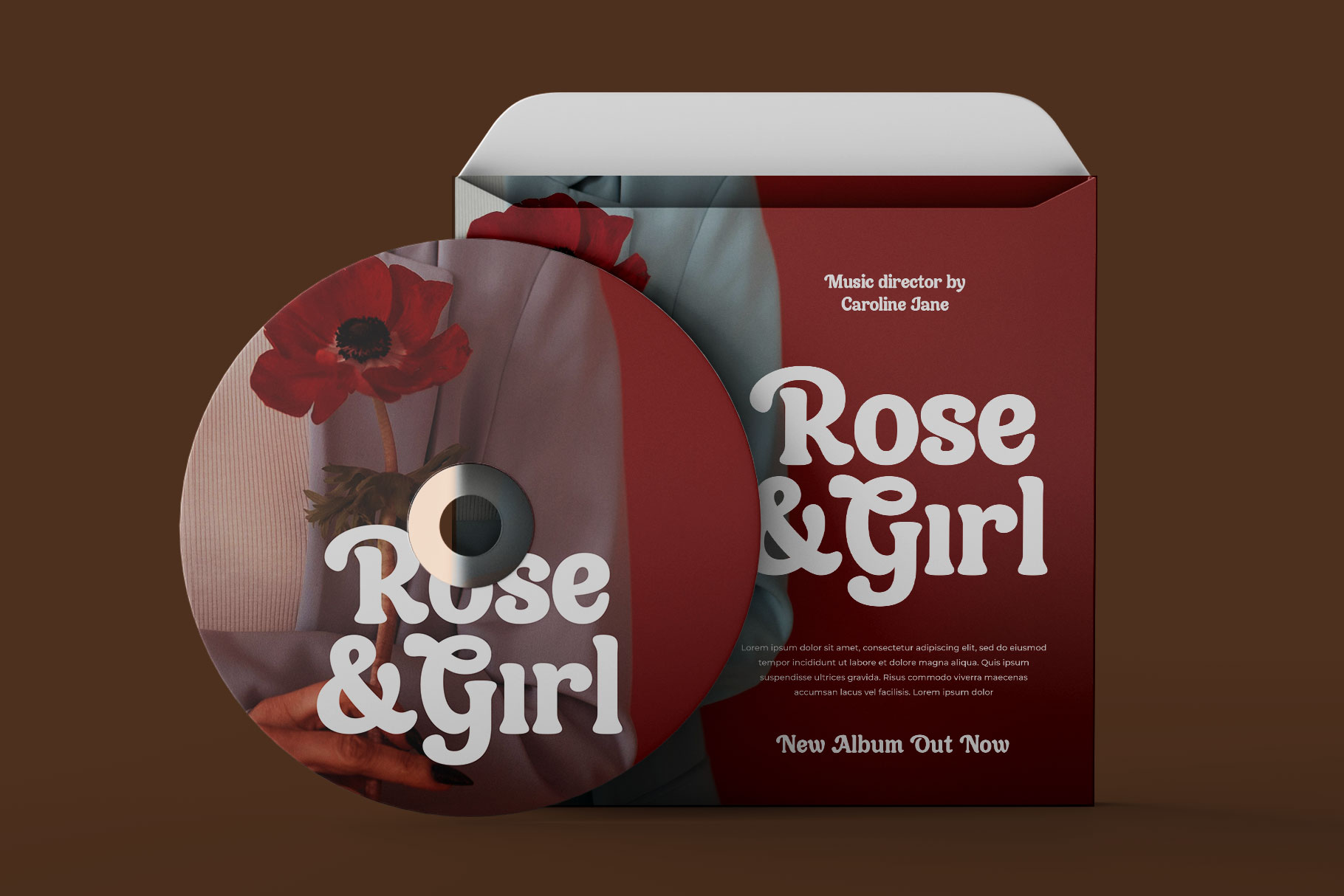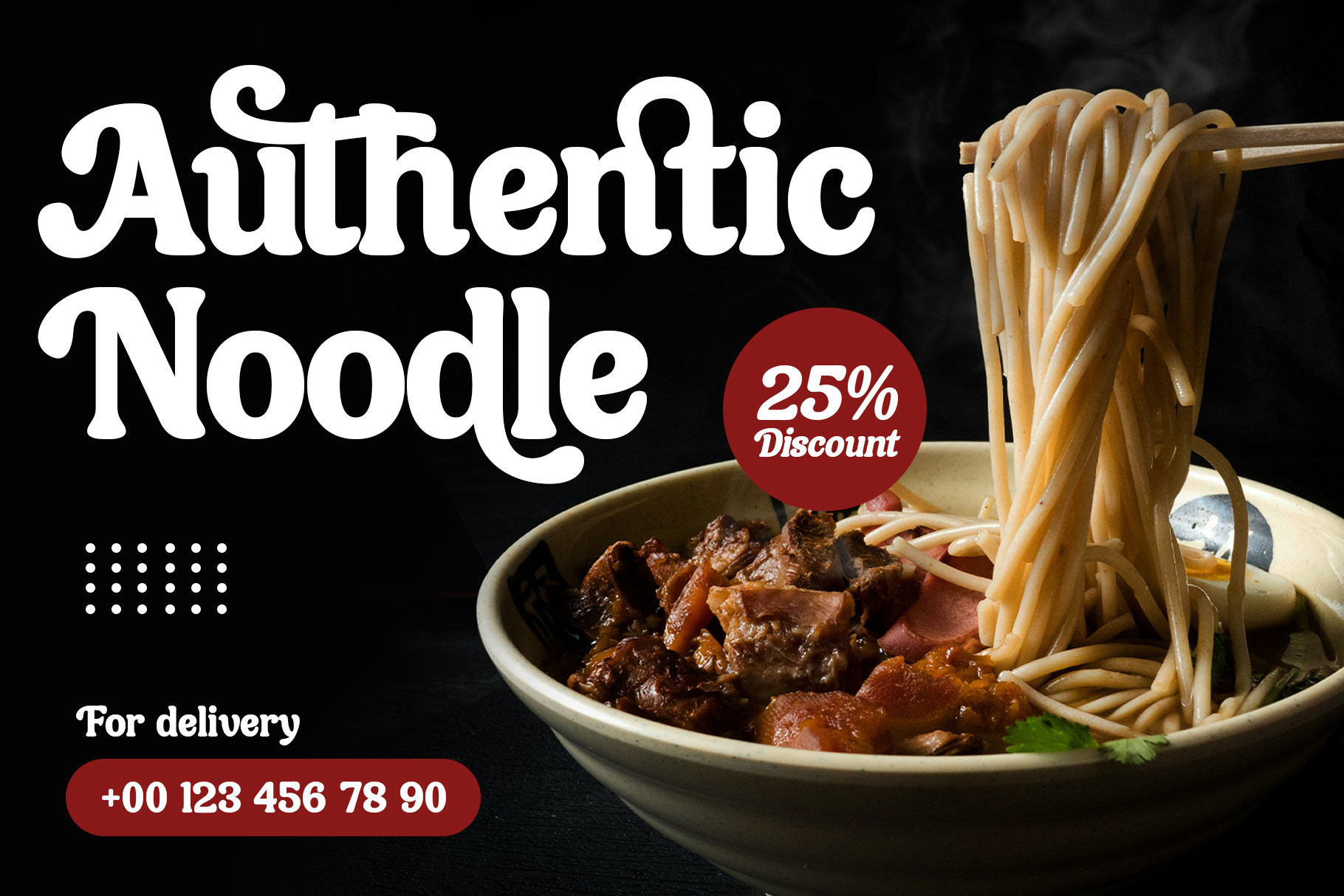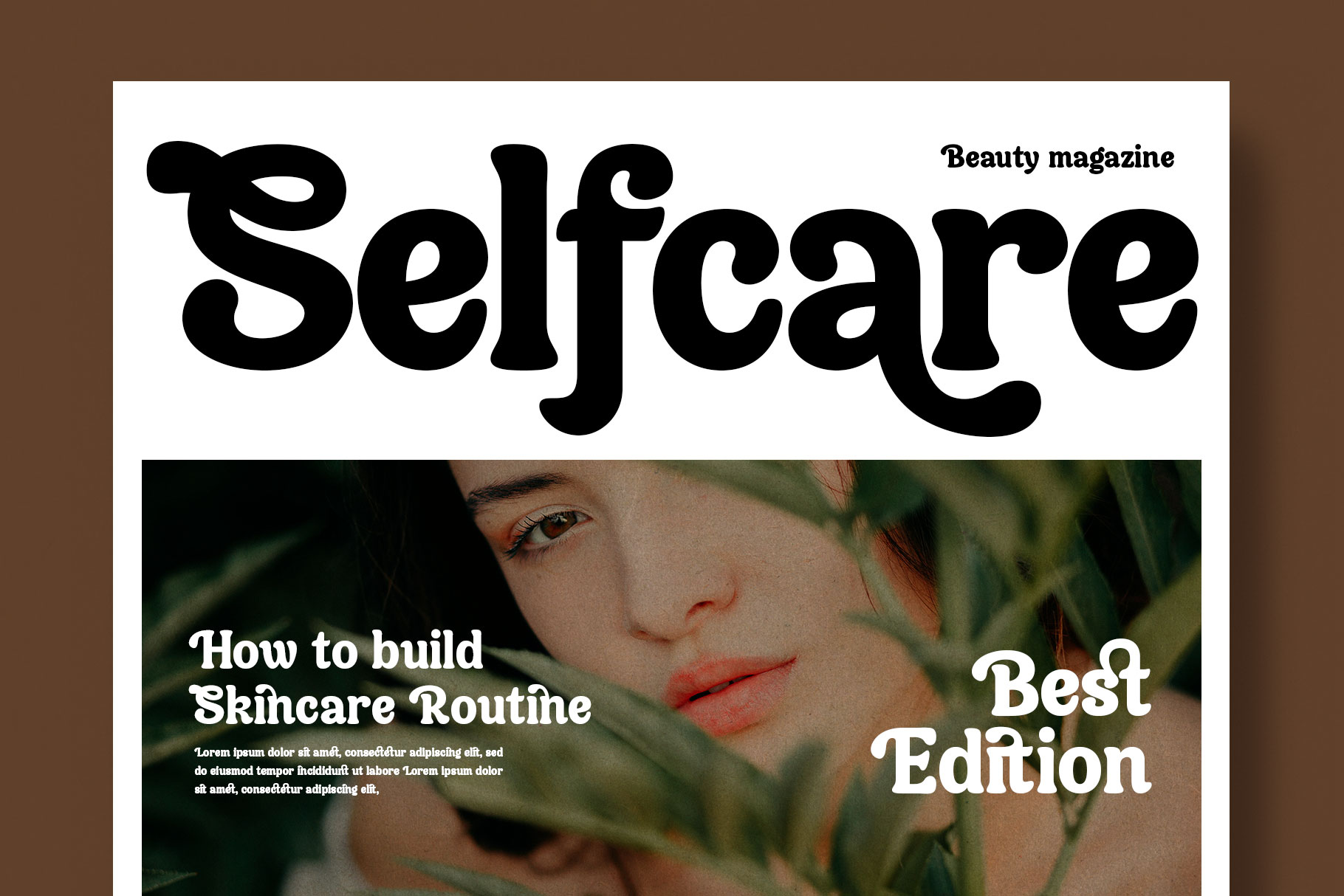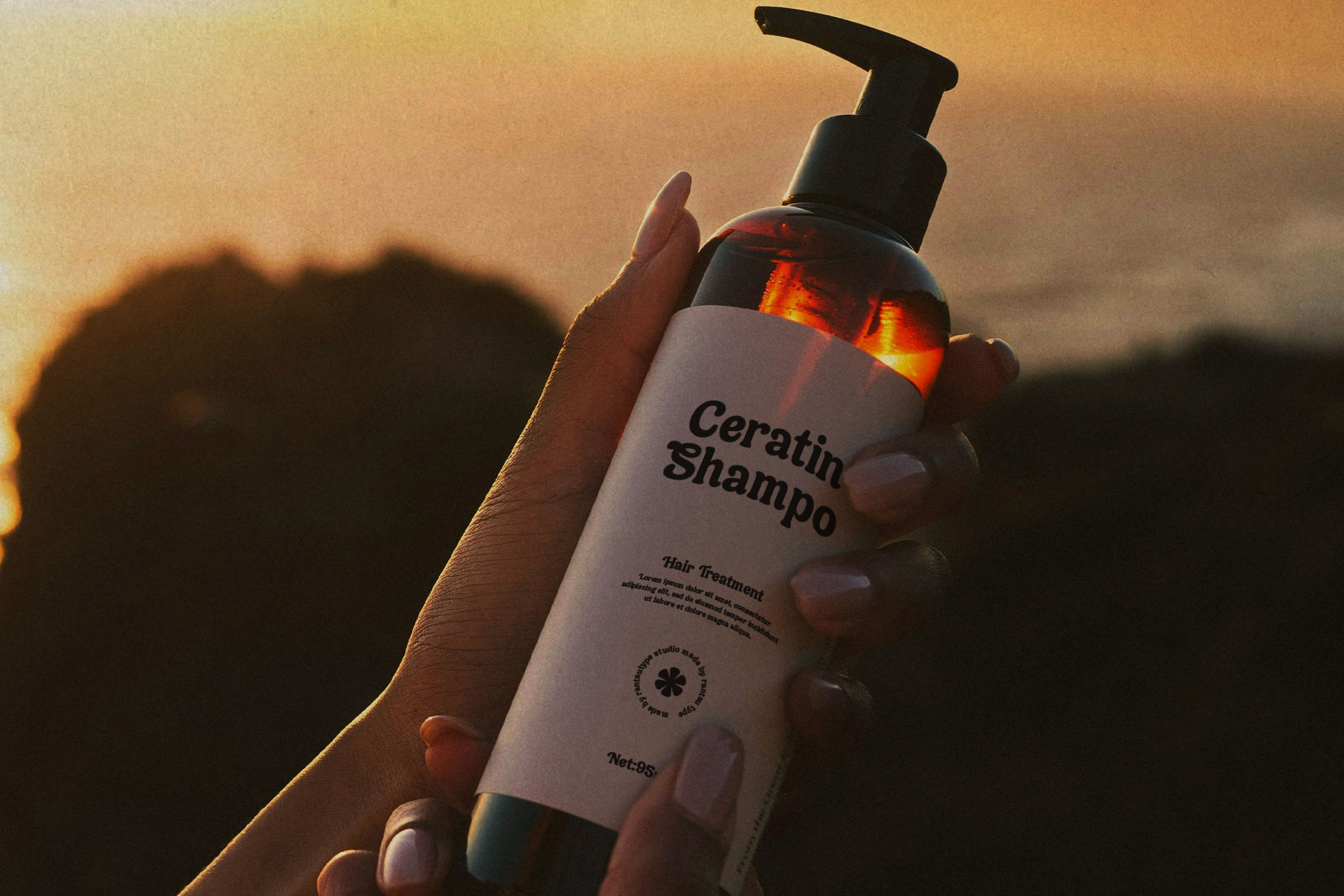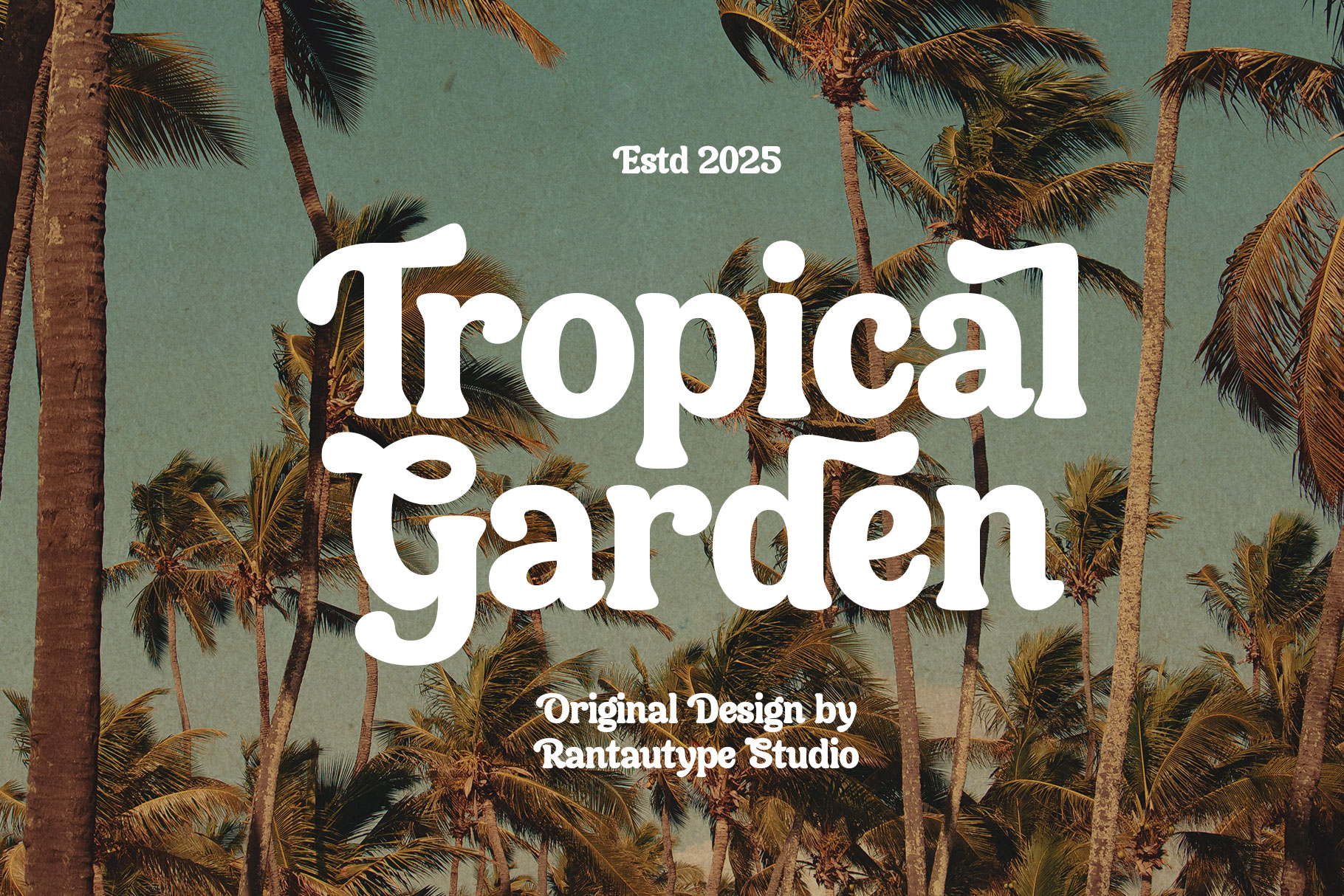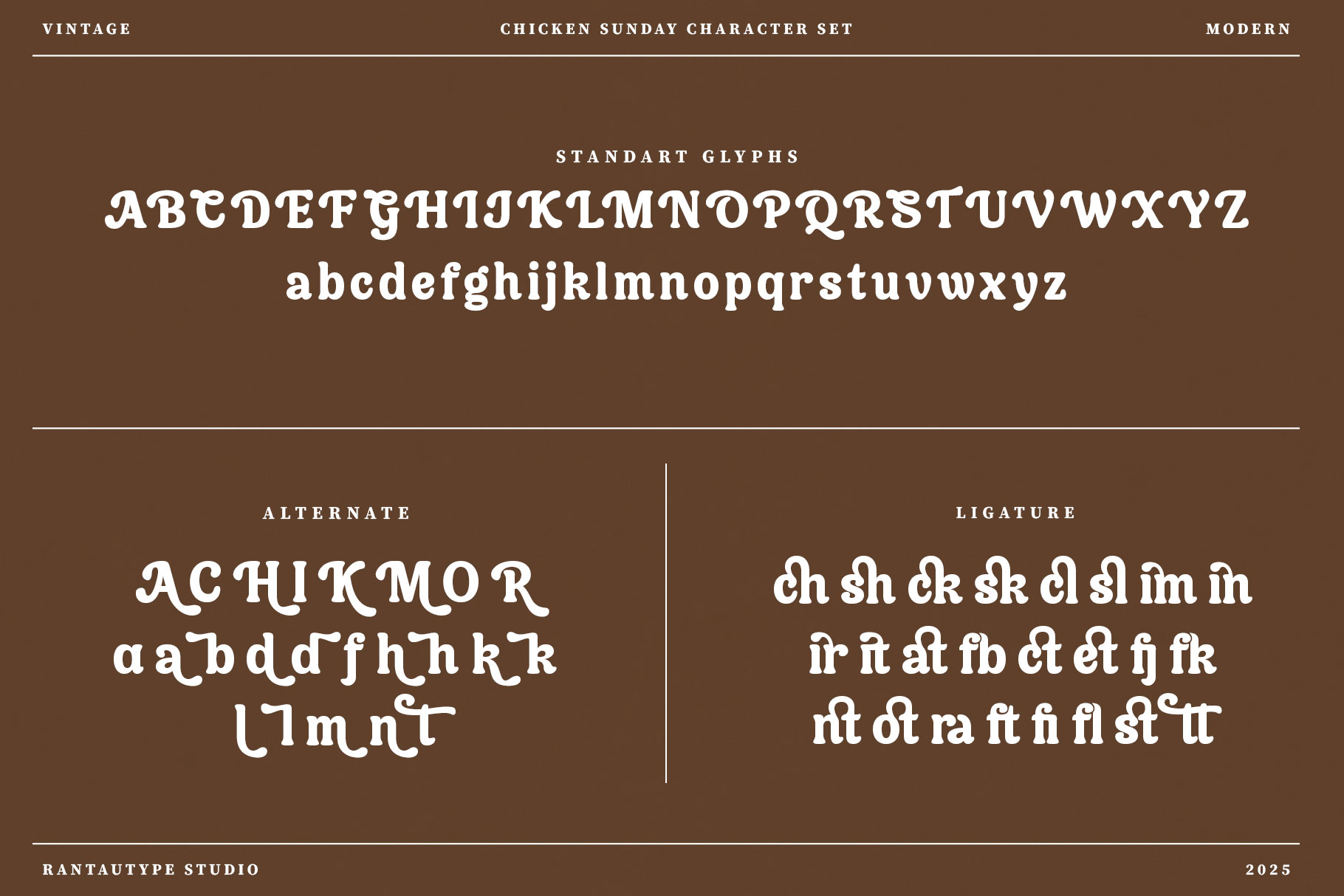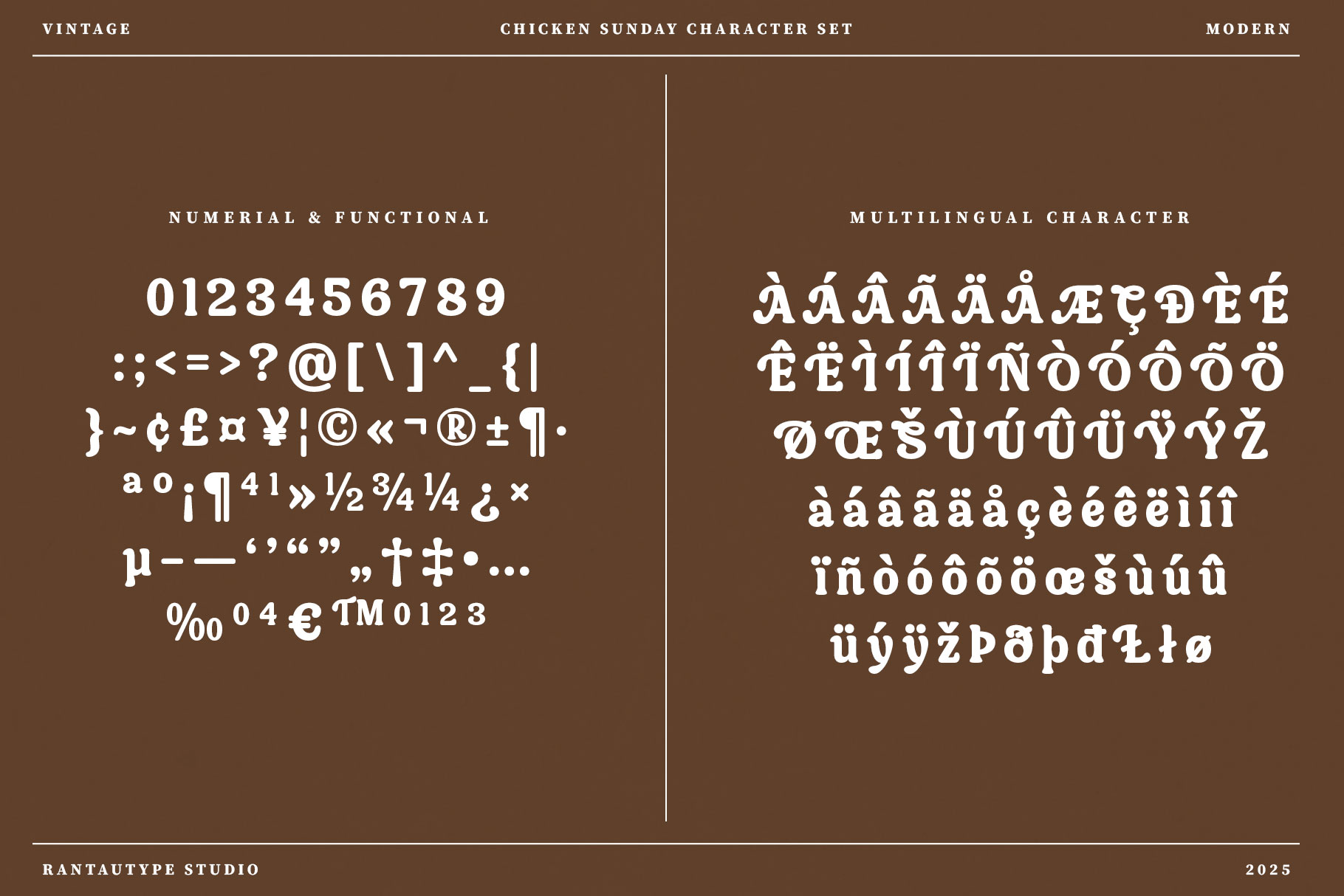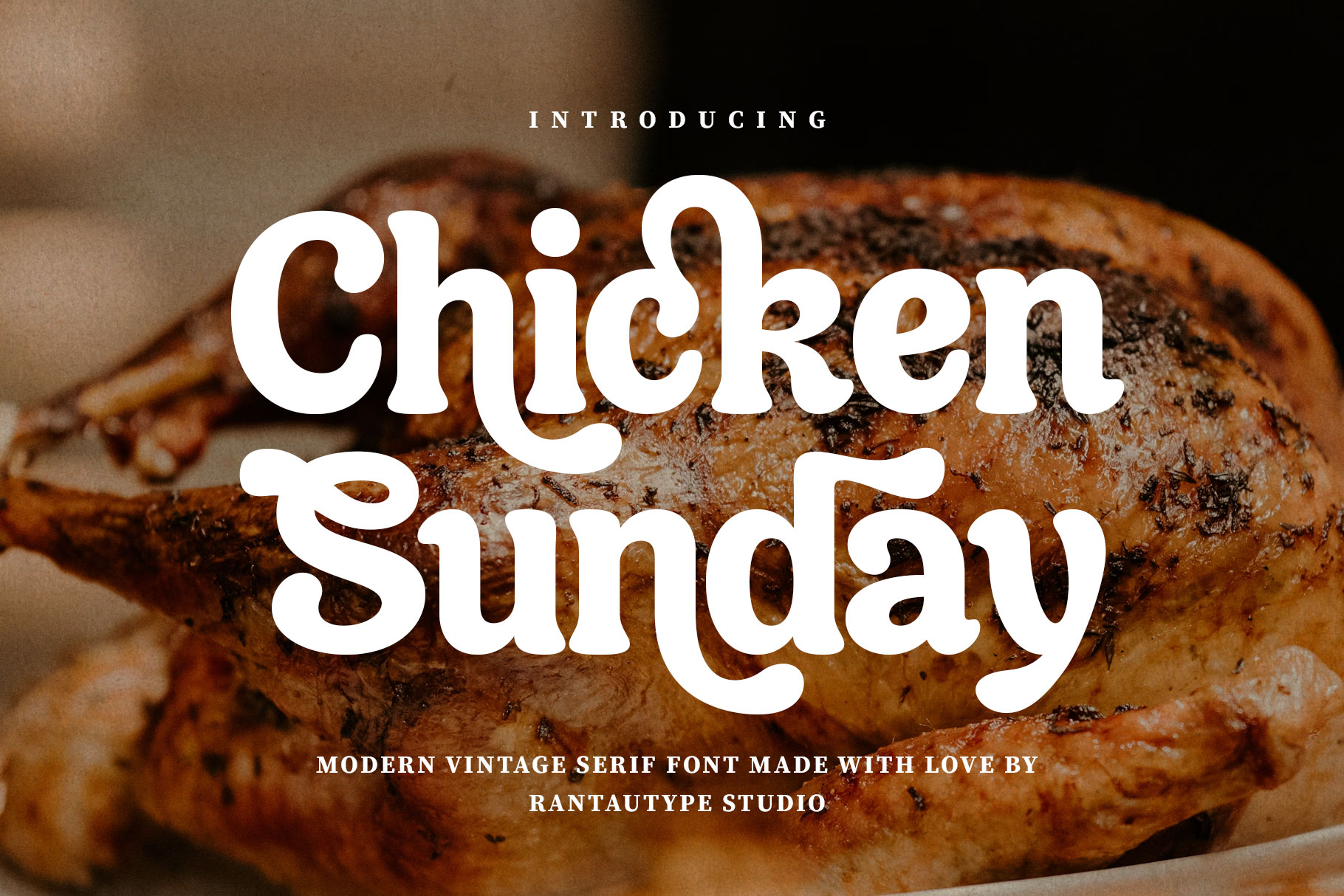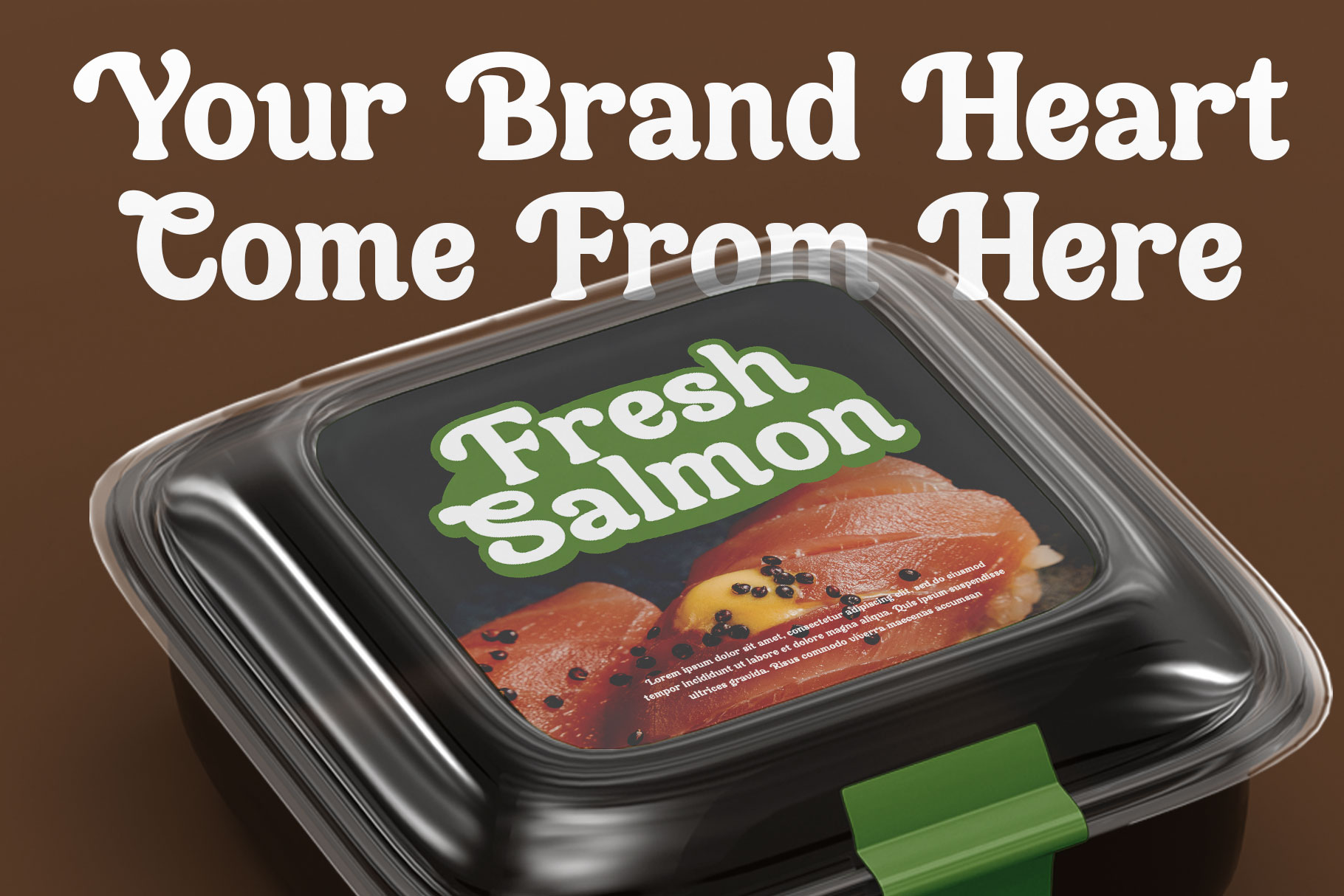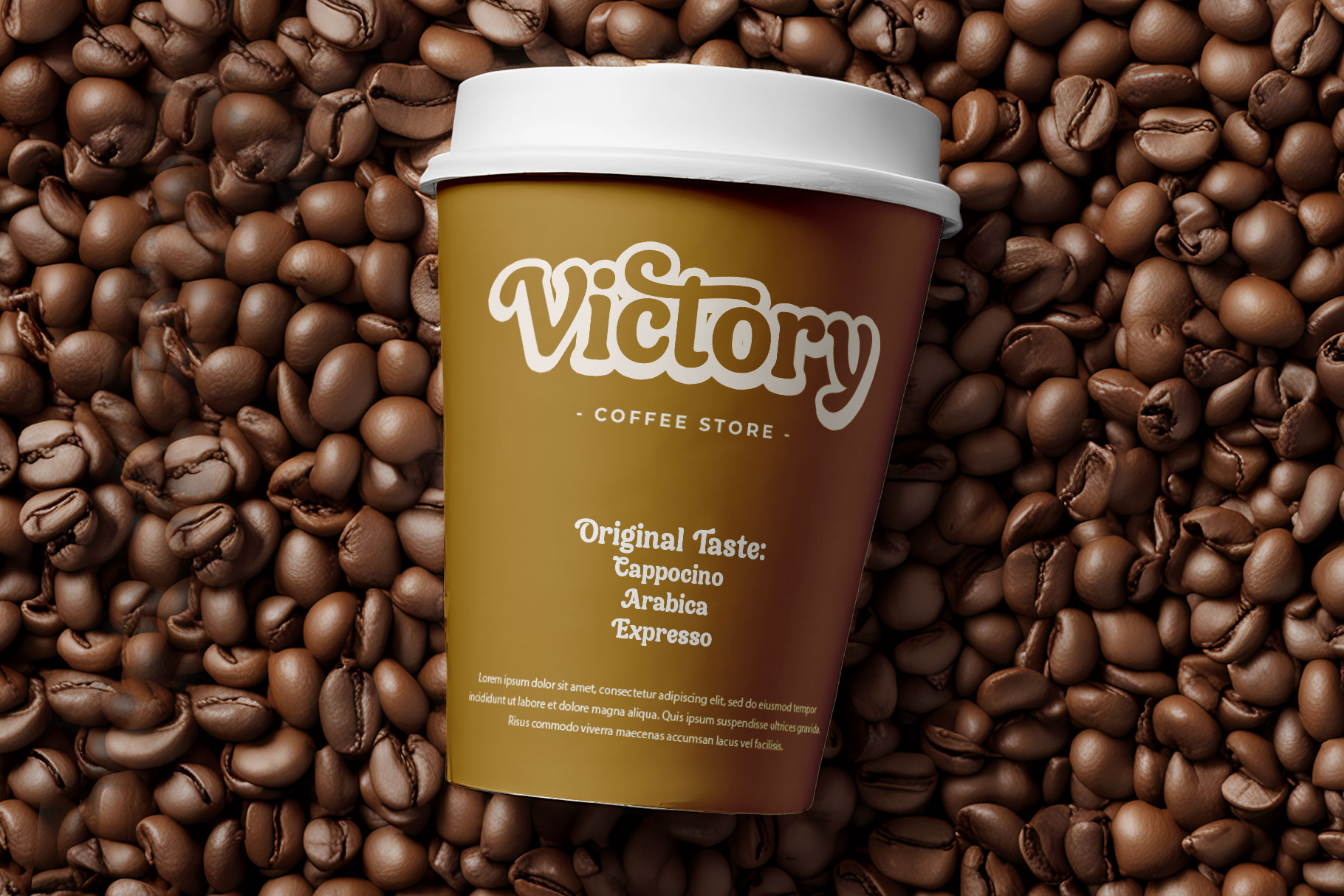
Chicken Sunday Modern Vintage Font
Chicken sunday is a perfect harmony between classic charm and contemporary design. It blends the nostalgic beauty of traditional serif lettering with smooth, rounded edges that give it a fresh, approachable feel. Chicken sunday come with curve and serif stroke carries a sense of craftsmanship, evoking the timeless elegance of vintage typography while maintaining the clarity and balance needed for modern use.
Chicken sunday is a perfectly choice for any creative endeavor, chic, lifestyle design such as logotype, advertisements, watermark on photography, stationery, branding project, display and magazine, invitation, corporate brand, product design, label, business project and many other project with modern touch.